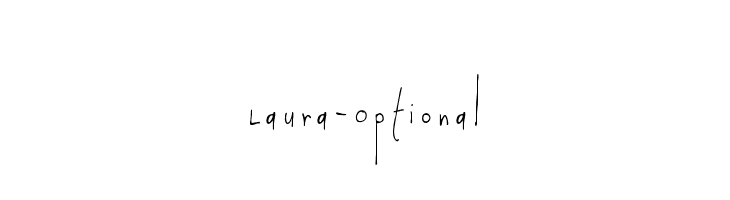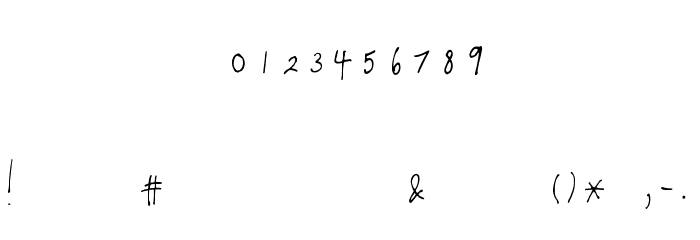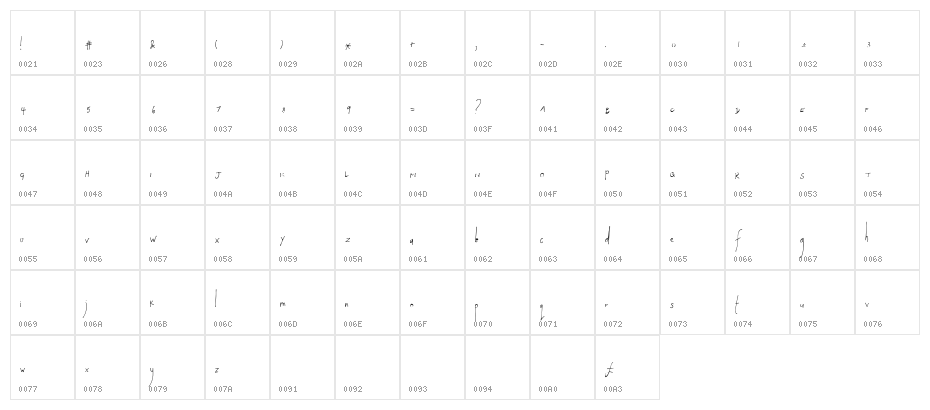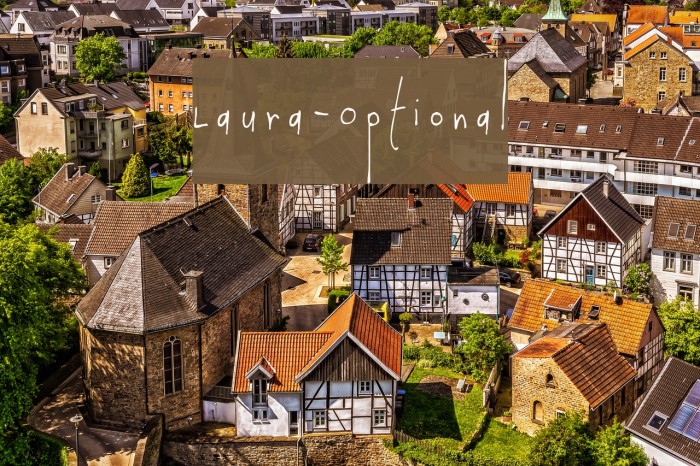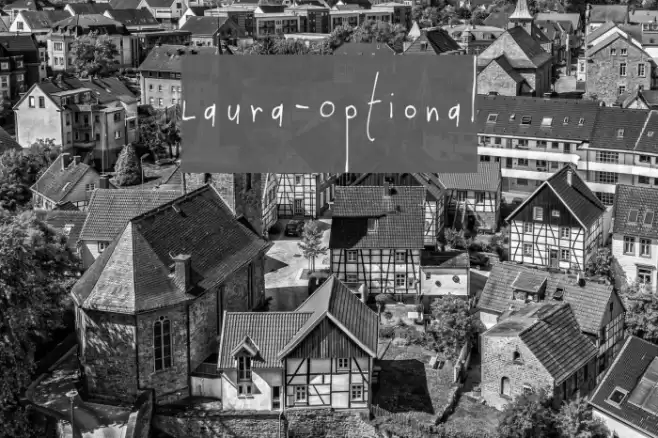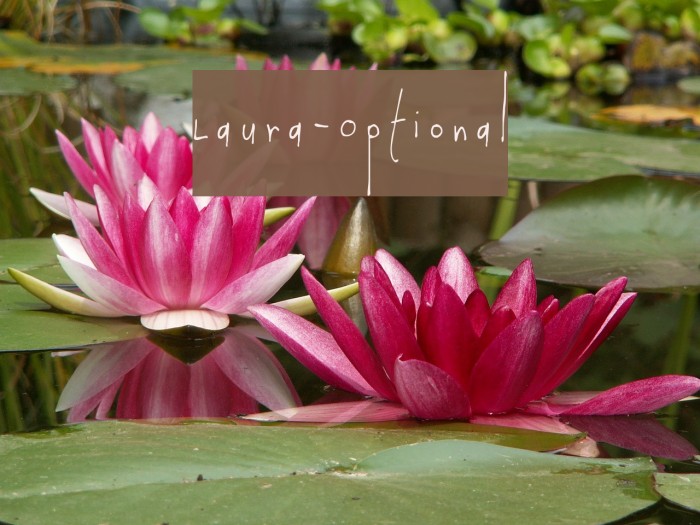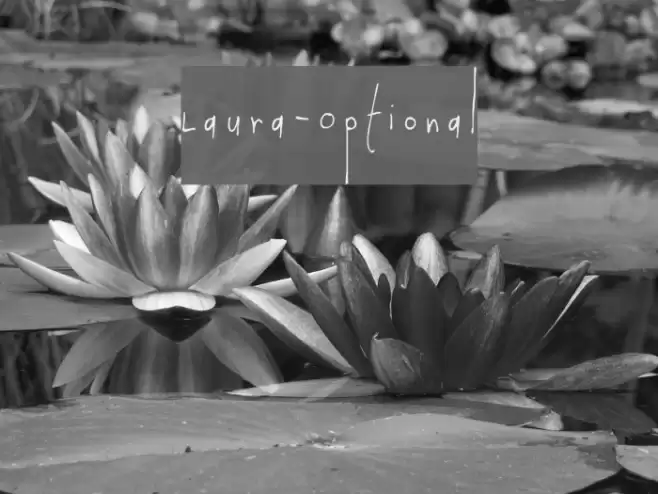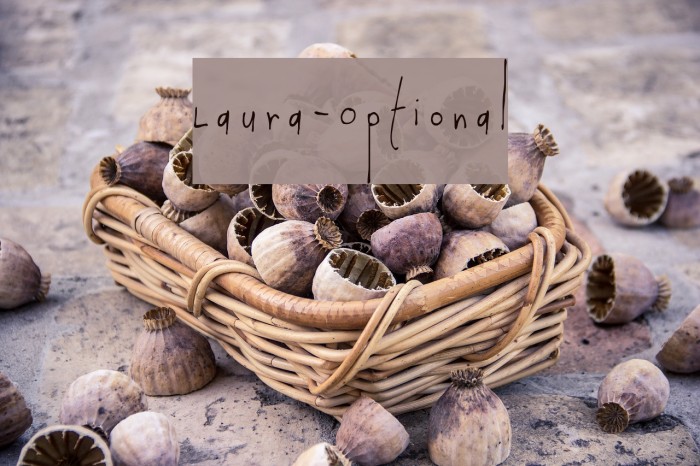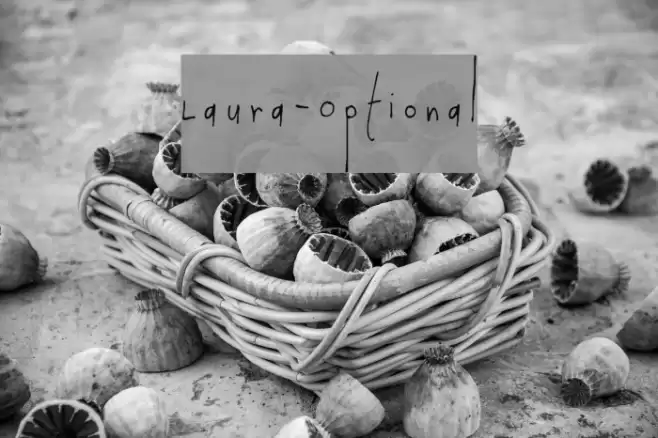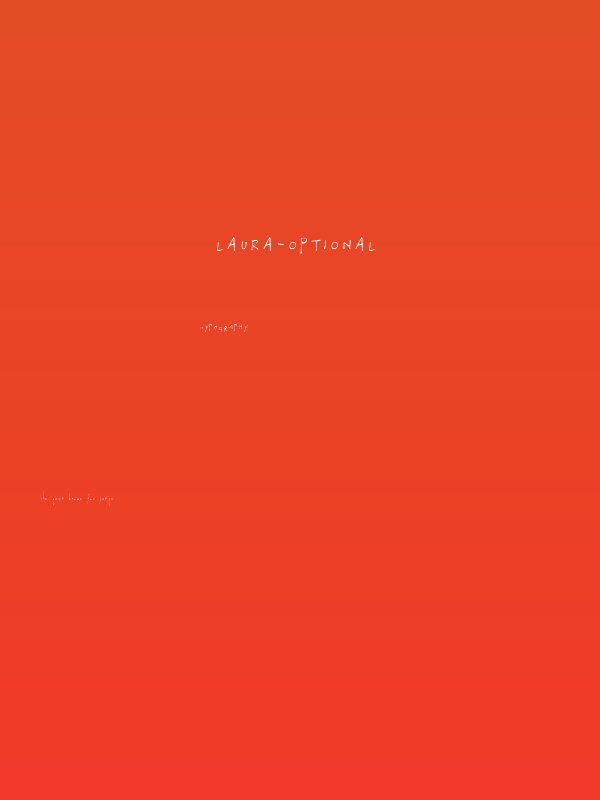
Laura-Optional Font
Laura-Optional Description
This font features a whimsical, handwritten style with a playful and casual appearance. The characters are slightly irregular, giving it a personal and organic feel. The uppercase letters are tall and slender, while the lowercase letters exhibit a charming, uneven baseline. The numerals and special characters maintain the same quirky aesthetic, adding to the font's overall uniqueness. This font's distinctive style makes it suitable for projects that require a touch of individuality and creativity.
| Proposed Projects | Ideal for greeting cards, personal blogs, creative branding, and children's book illustrations. |